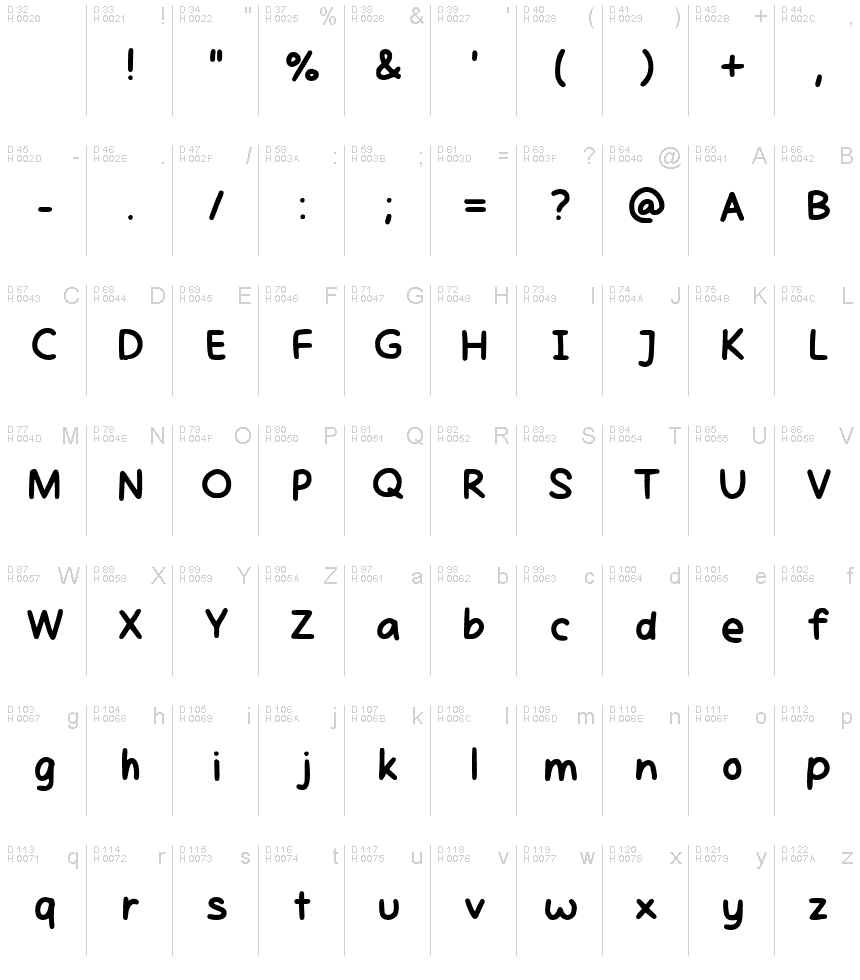
Elles Digital Handwritt Regular
Introducing Elles Digital Handwritting - a beautiful handwritten font designed by Elle Christy. Perfect for creating eye-catching designs, this light weight font is ideal for crafting wedding invitations, logo designs, and social media posts.